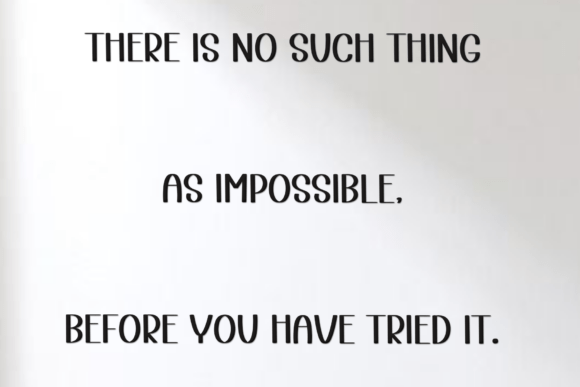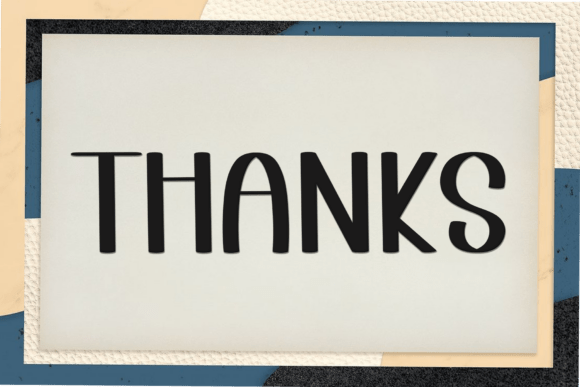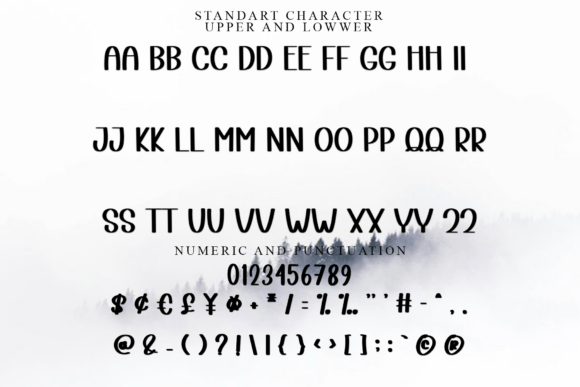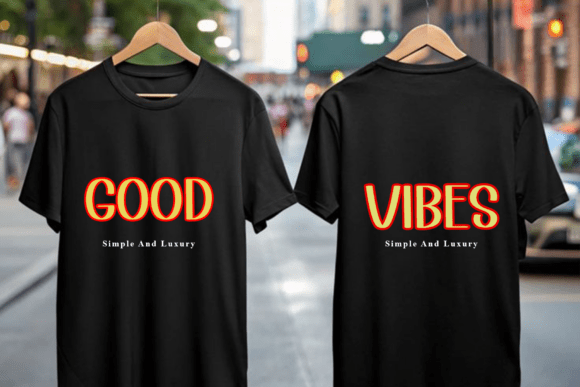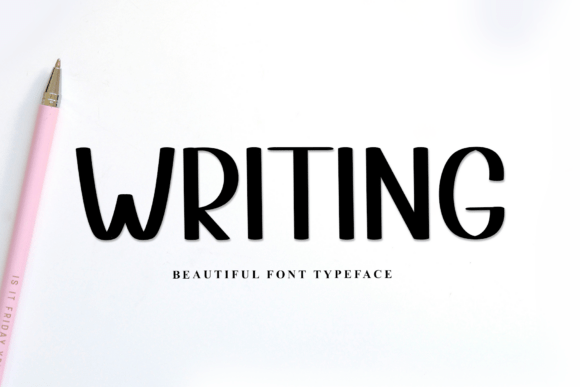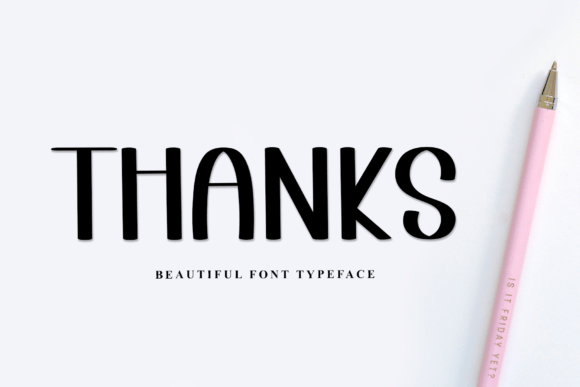
Introducing Farmer Dream Font: A Festive and Merry Typeface for the Holiday Season
Are you looking for a font that captures the essence of the holiday season? Do you want to add a touch of magic to your designs and make them stand out? Look no further than Farmer Dream Font, a festive and merry typeface that’s perfect for greeting cards, gift tags, and holiday-themed projects.
A Festive and Whimsical Typeface
Farmer Dream Font is a decorative typeface that’s designed to bring a cheerful and nostalgic ambiance to your words. With its whimsical flair and enchanting elements, this font is sure to add a touch of wonder to your designs. Whether you’re creating holiday cards, gift tags, or festive posters, Farmer Dream Font is the perfect choice.
Farmer Dream Font is a versatile typeface that’s perfect for designers and crafters alike. With its PUA encoding, you can access all of the amazing glyphs and ligatures with ease, making it easy to create stunning designs that will leave a lasting impression. Whether you’re a professional designer or a crafter looking to add a personal touch to your projects, Farmer Dream Font is a great choice.
Key Features of Farmer Dream Font
- Festive and Merry Design: Farmer Dream Font is designed to capture the spirit of the holiday season, with a festive and merry design that’s sure to bring a smile to your face.
- Decorative Elements: This font features decorative elements and whimsical flair, making it perfect for adding a touch of enchantment to your designs.
- PUA Encoded: With PUA encoding, you can access all of the amazing glyphs and ligatures with ease, making it easy to create stunning designs.
- Perfect for Holiday Projects: Farmer Dream Font is perfect for holiday-themed projects, including greeting cards, gift tags, and festive posters.
Tips and Tricks for Using Farmer Dream Font